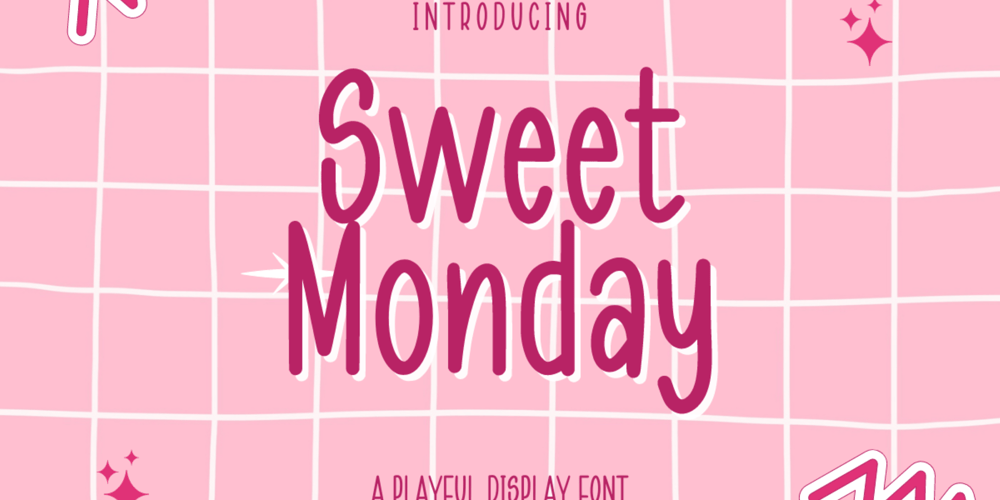
Sweet Monday Font Family was designed by Muhammad Yafinuha and published by Letterayu Studio. Sweet Monday contains 1 styles and family package options. Sweet Monday is a Playful Display font that will make your designs look unique and fun. It’s perfect for labels, quotes, posters, DIY projects, branding, packaging, greeting cards, websites, photography overlays, signs, window art, scrapbooking, tags and so much more! What’s Included :+ Standard glyphs+ Web Font+ Multilingual Accent+ Works on PC & Mac+ Simple installations Accessible in the Adobe Illustrator, Adobe Photoshop, Adobe InDesign, even work on Microsoft Word. PUA Encoded Characters – Fully accessible without additional design software. Fonts include multilingual support + Image used : All photographs/pictures/vector used in the preview are not included, they are intended for illustration purpose only. Thank You